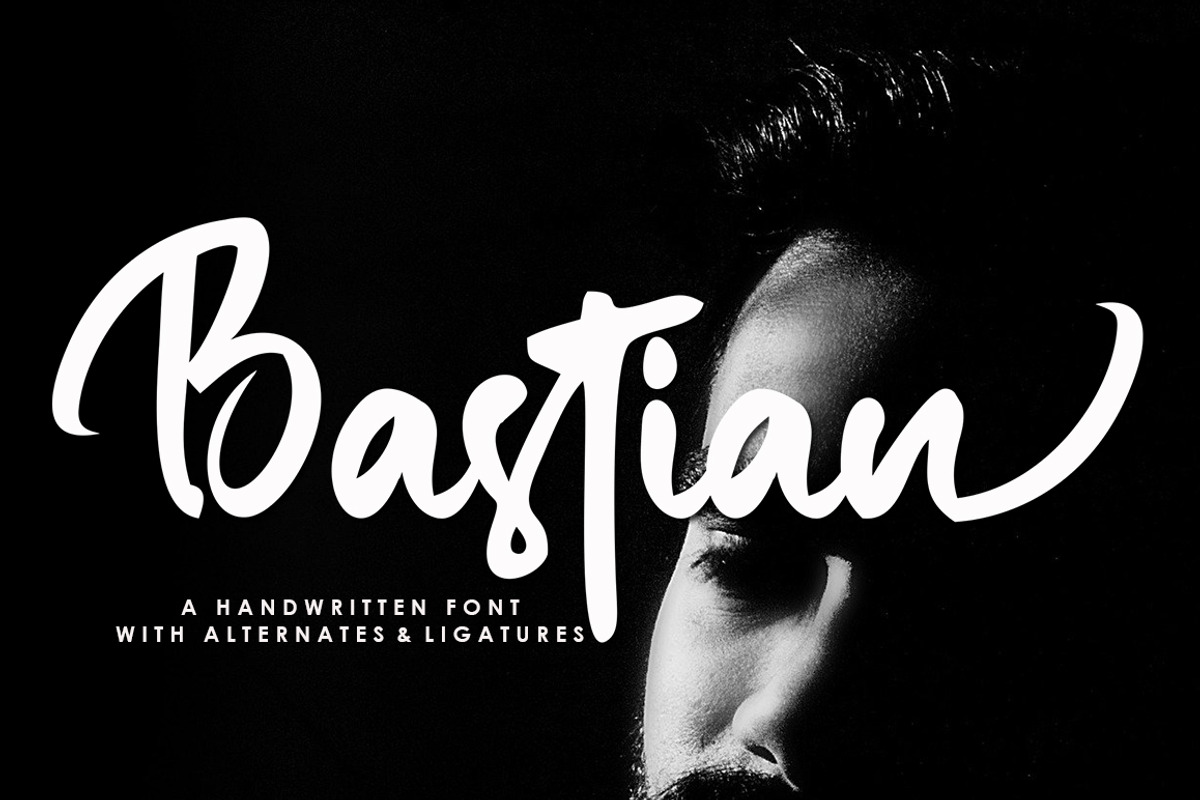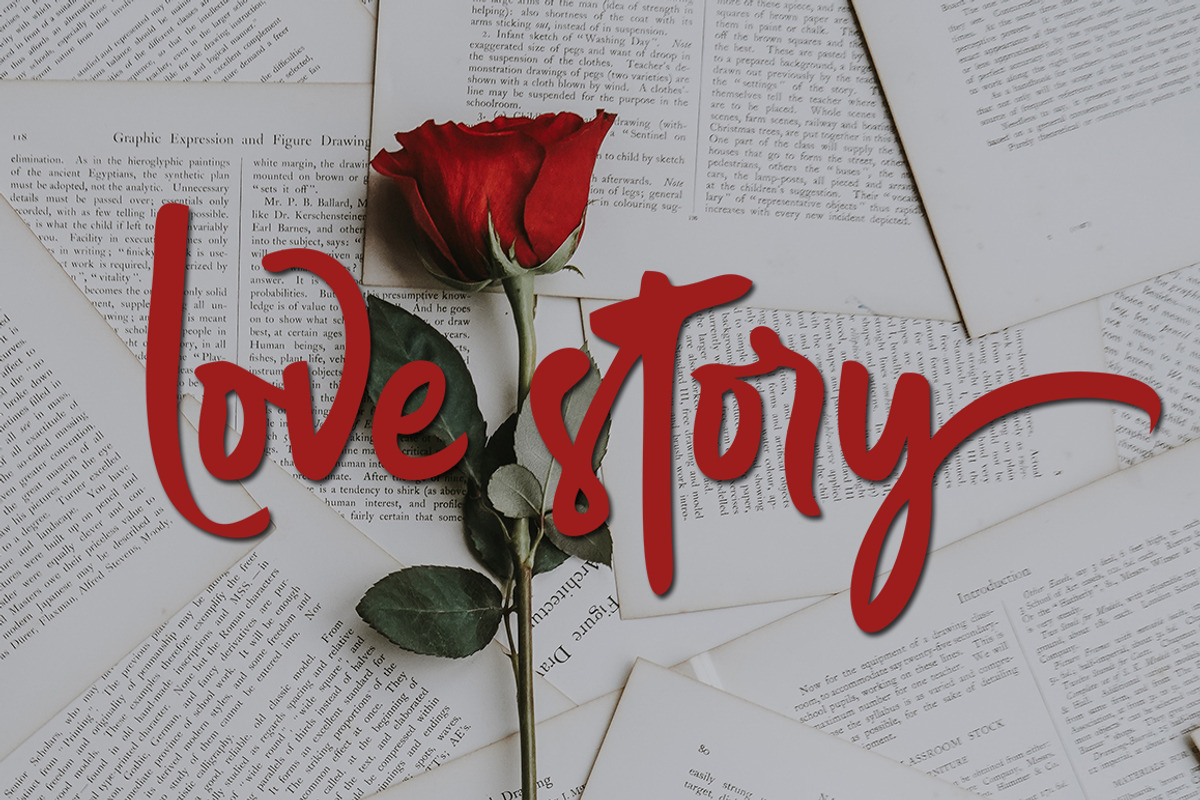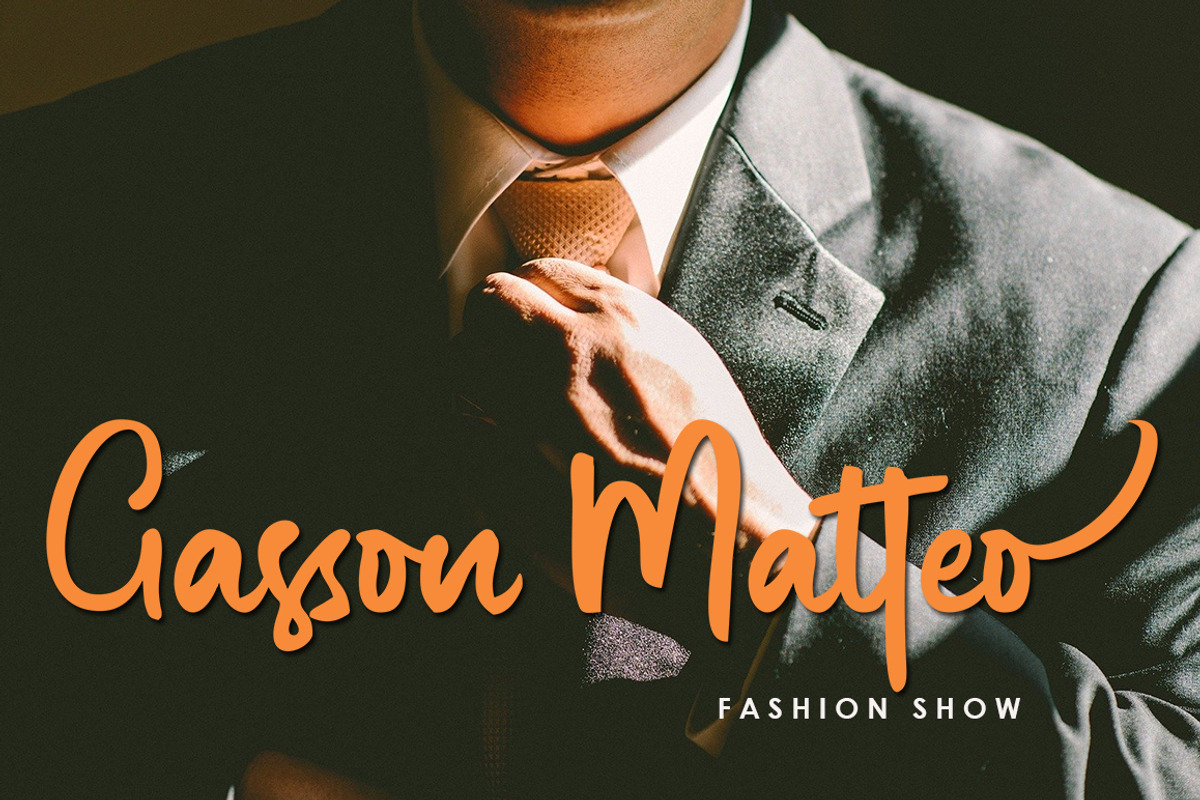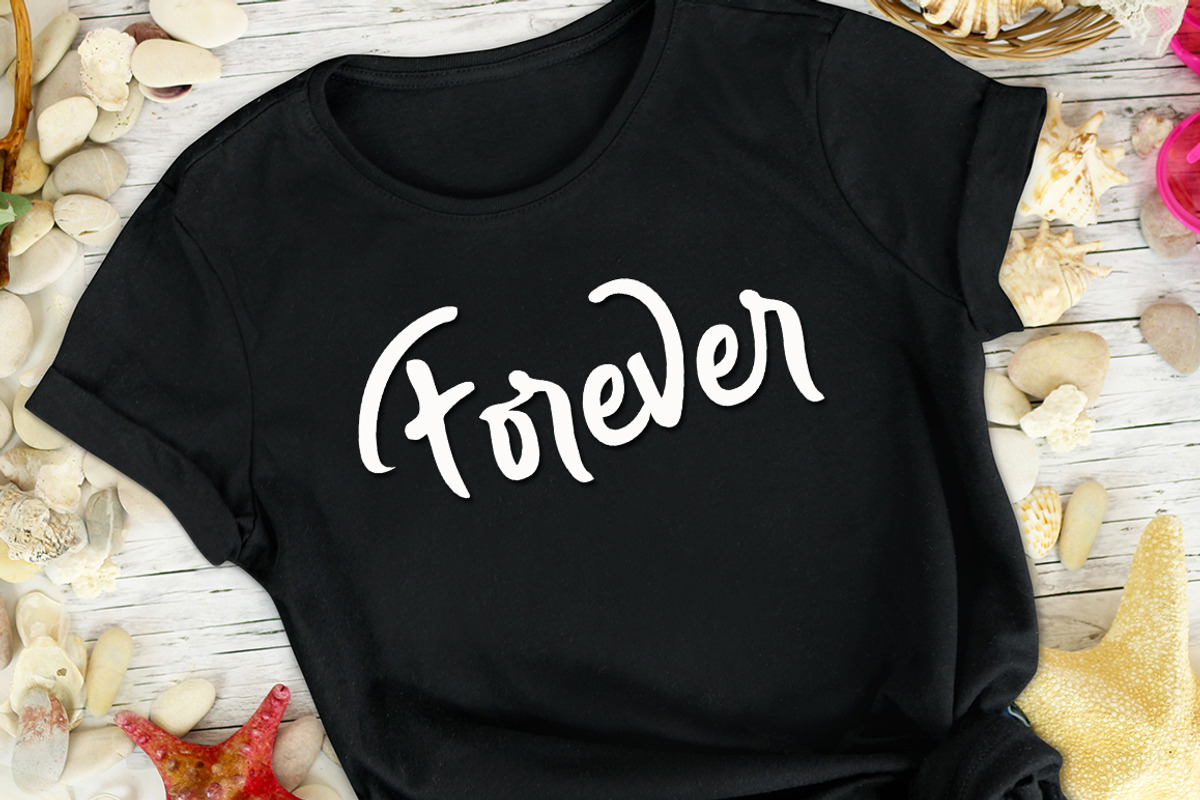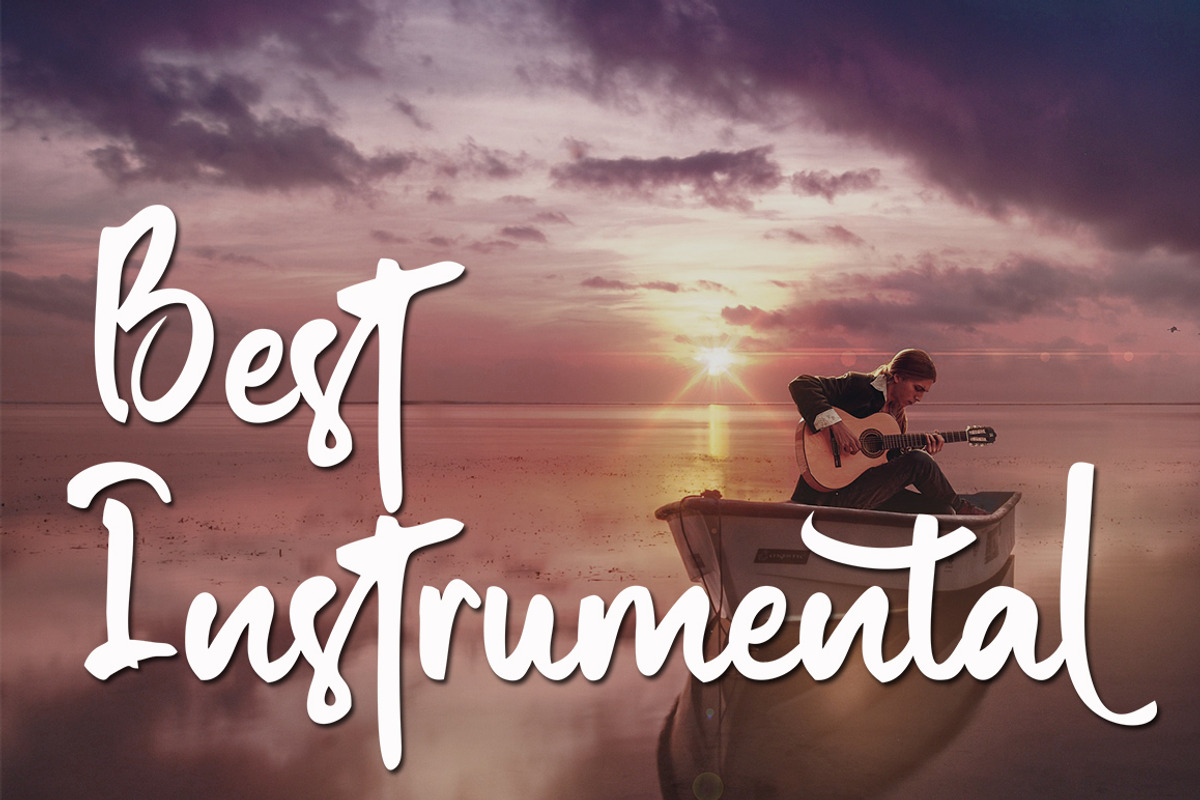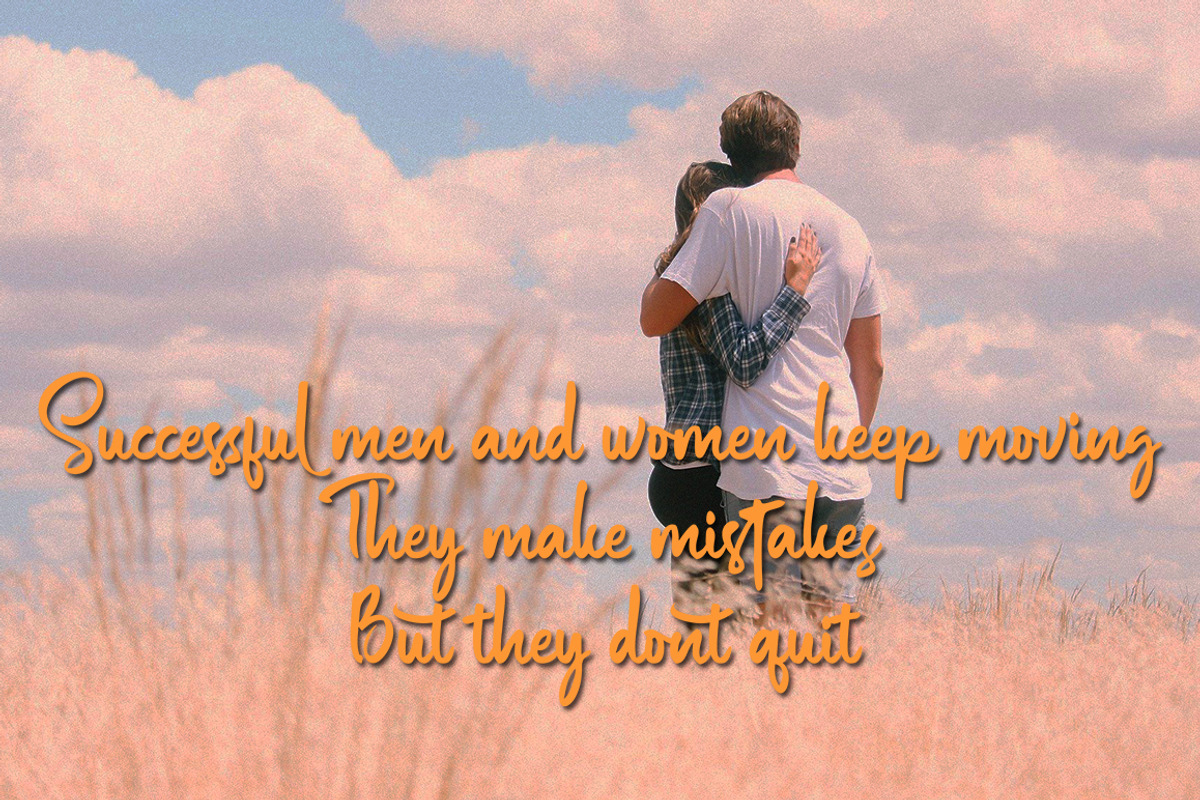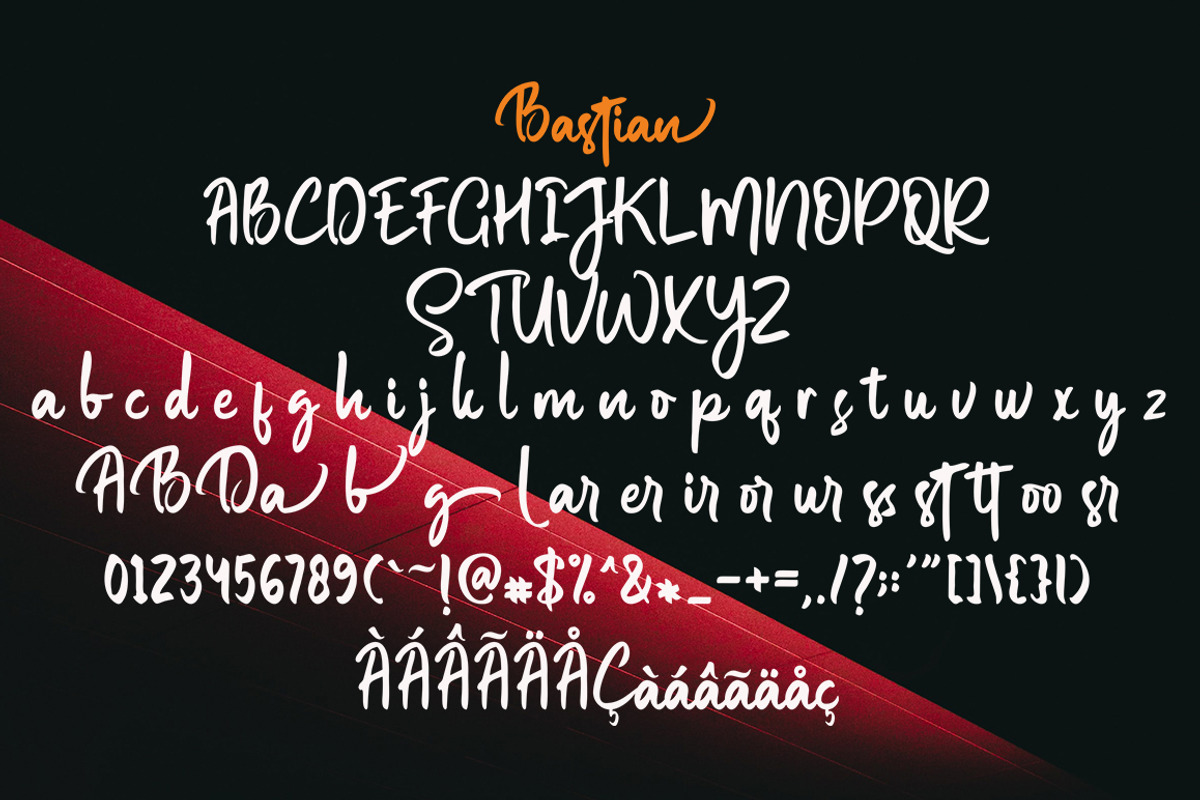
Bastian
Bastian is a modern handwritten brush font, organic, dynamic and energetic sytle.Can used for various purposes. such as the title, signature, logo, correspondence, wedding invitations, letterhead, signage, labels, newsletters, posters, badges, etc.